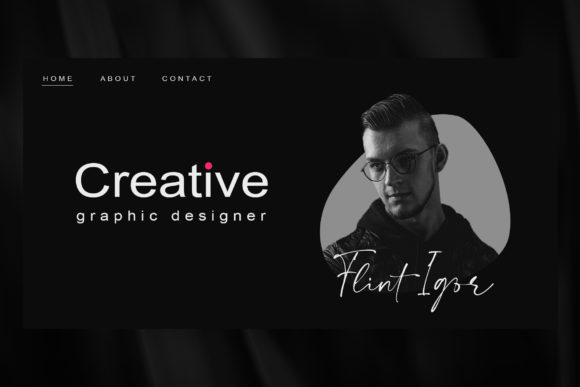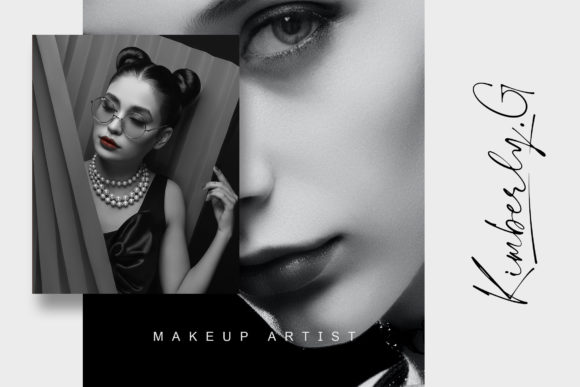
Jason Signature Font
db-ku.com - Script & Handwritten -- Jason Signature is an enchanting handwritten font. This versatile script font has a wide spectrum of applications ranging from greeting cards to headlines and is guaranteed to add a romantic feel to your next project.